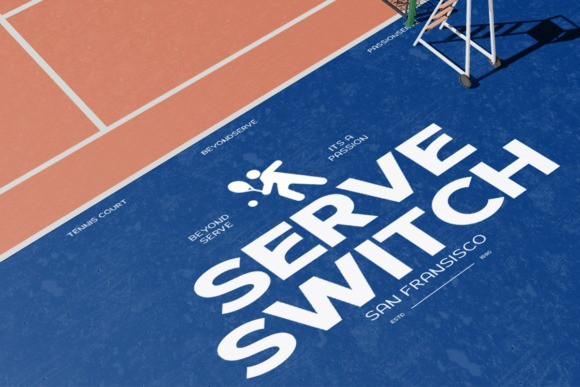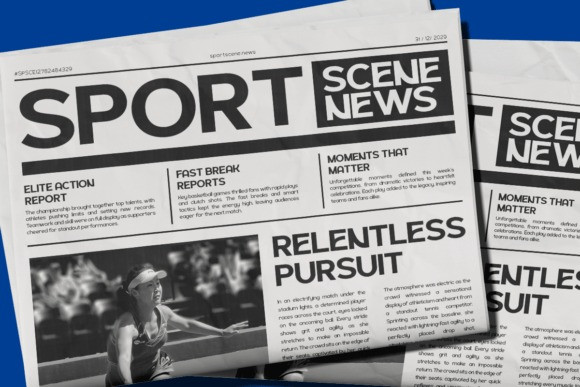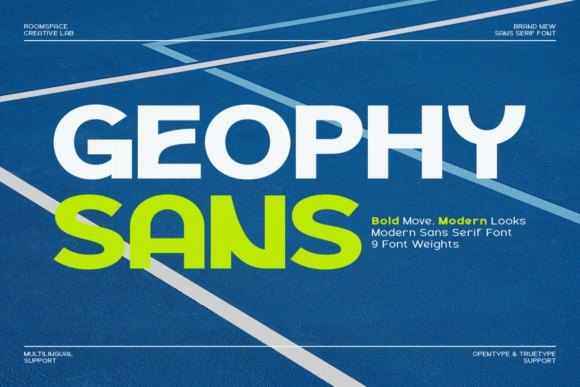
Geophy Font
Geophy Font is a clean, versatile Modern Sans Serif Font that offers exceptional clarity and a powerful, contemporary presence for any professional design.Characterized by its wide stance, slightly rounded terminals, and clear, bold forms, this typeface conveys confidence and strong modern appeal.
The Geophy Sans font is an indispensable utility, providing 9 font weights to cover everything from crisp body copy to impactful, heavy headlines, ensuring perfect typographic hierarchy across all mediums. Its multilingual support and technical compatibility make the Geophy Sans typeface ideal for corporate branding, sports-related promotions, web design, mobile apps, and editorial layouts where clean, functional aesthetics are paramount. This Brand New Sans sans-serif font is the foundation for an elegant, assertive, and highly readable design.